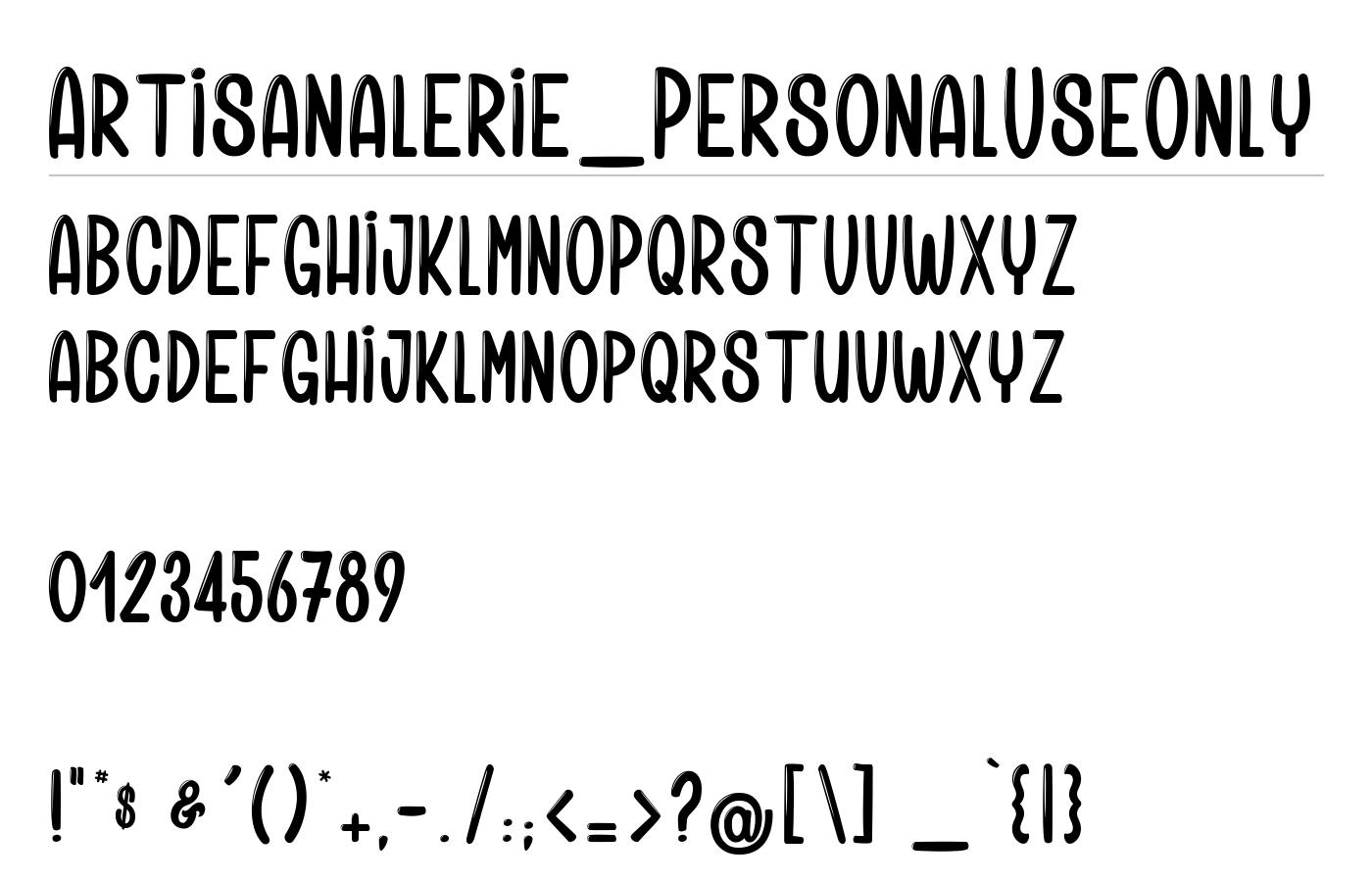
Artisanalerie_PersonalUseOnly is a playful and quirky sans serif font featuring tall, narrow letterforms with a hand-drawn feel. Its uneven strokes and whimsical character shapes give it a friendly and informal personality, making it ideal for creative projects, casual branding, or fun editorial layouts. This font works especially well for headlines, packaging, and designs seeking a unique, handcrafted vibe.